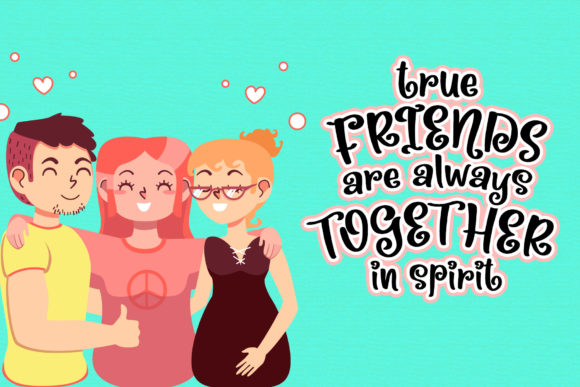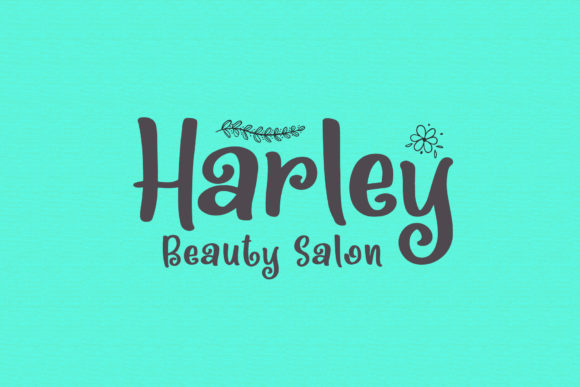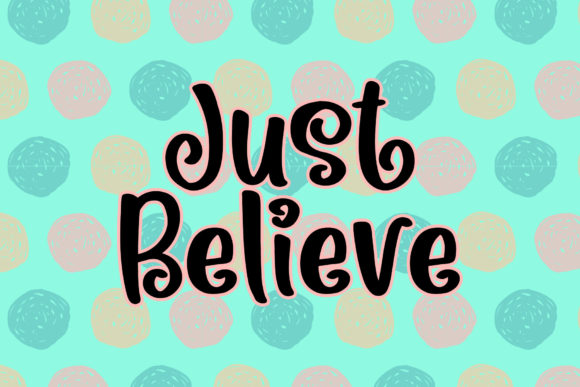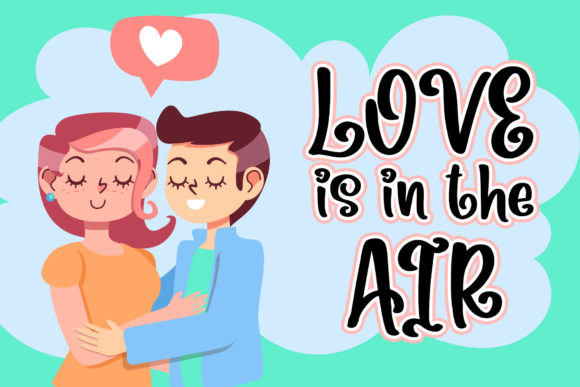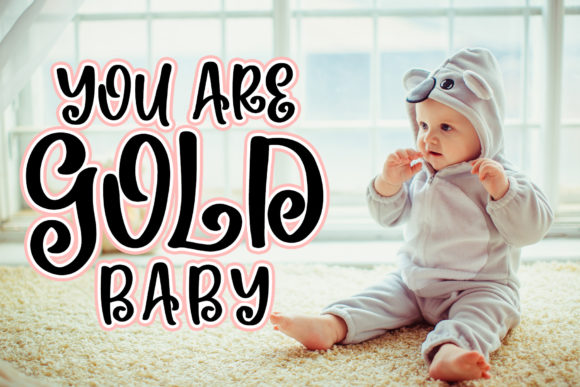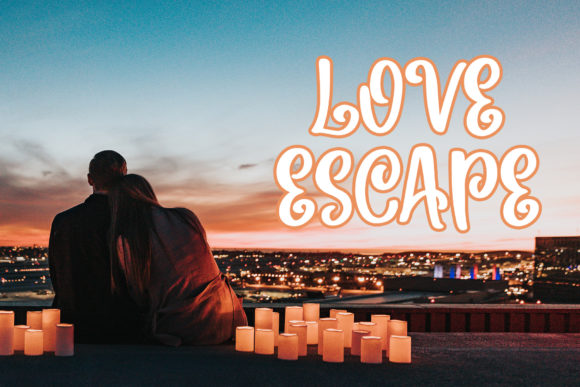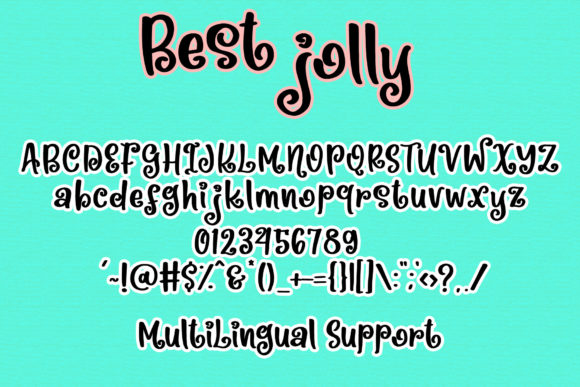
Best Jolly Font
About Best Jolly Font
Best Jolly is a cute and fun handwritten font with an incredibly friendly feel. Whether you’re looking for fonts for Instagram or calligraphy scripts for DIY projects, this font will turn any creative idea into a true piece of art!